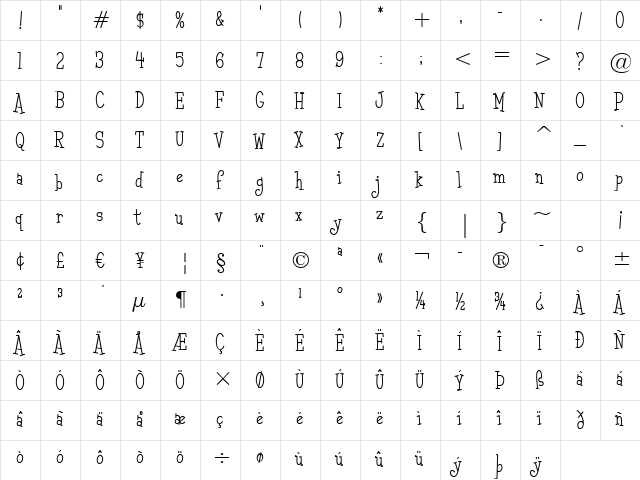
Malihini Tahitian BTN Cond Lt Regular Font Preview
Design Context for Malihini Tahitian BTN Cond Lt Typeface
Malihini Tahitian BTN Cond Lt takes a measured approach to typography — its balanced proportions and neutral character make it a reliable workhorse for both digital and print work. The delicate stroke weight brings airiness and refinement to layouts. The condensed width makes it efficient for tight spaces without sacrificing legibility.